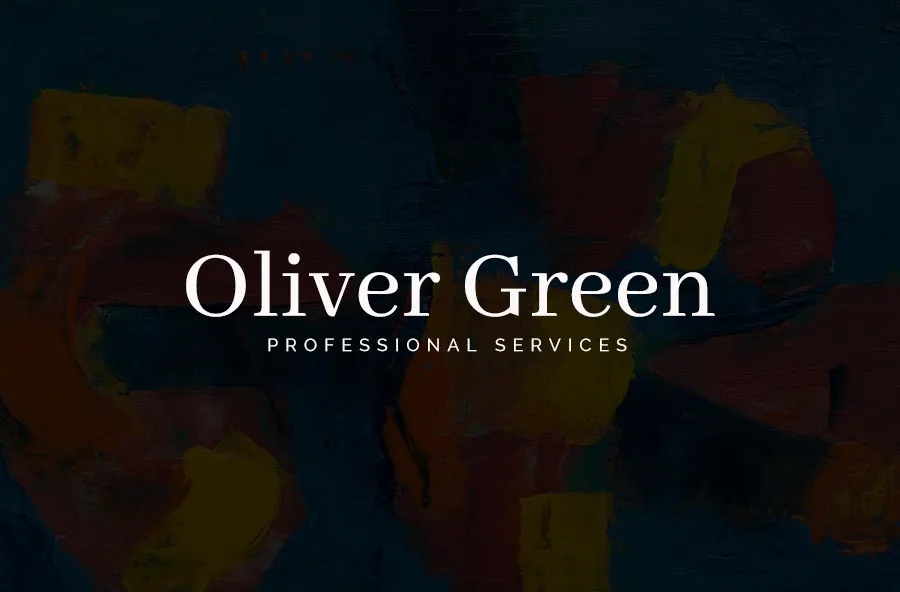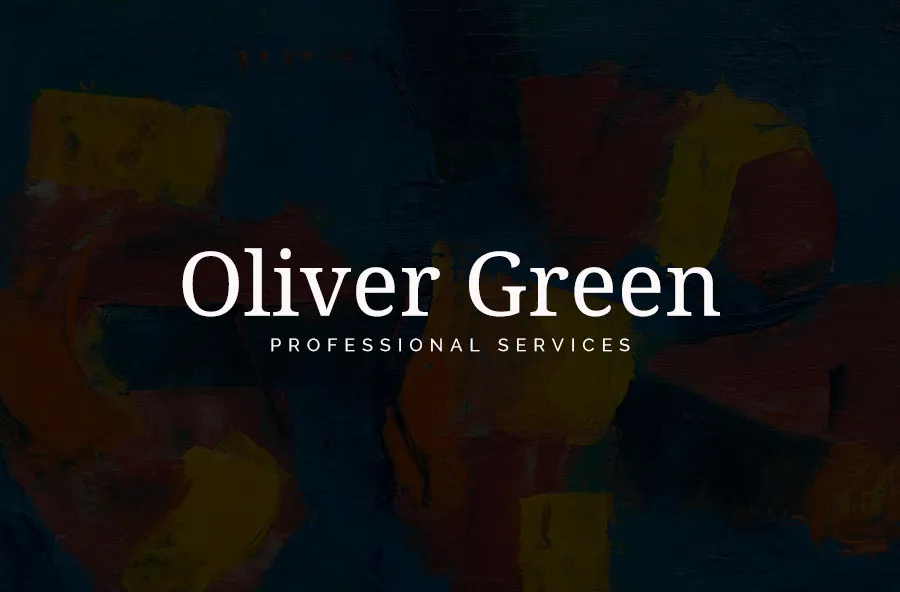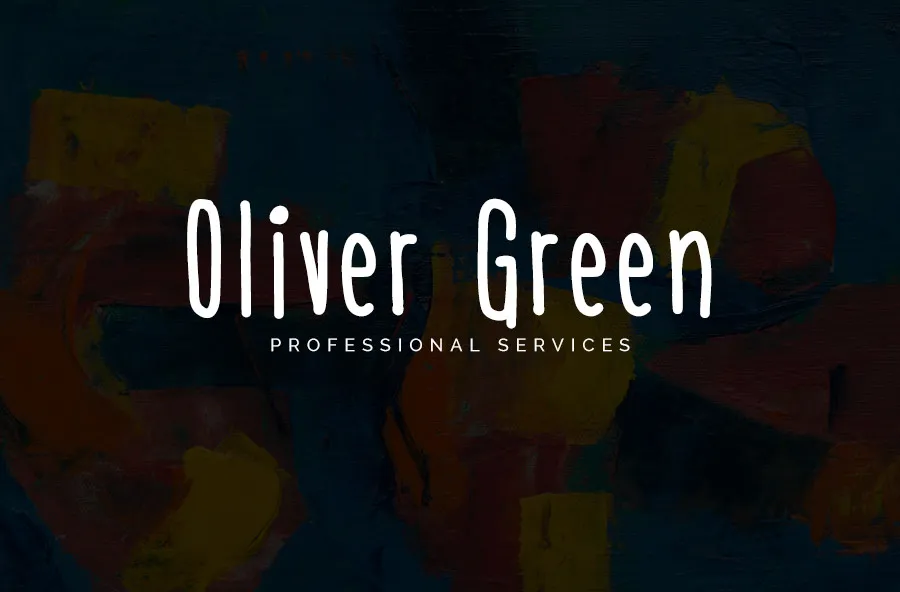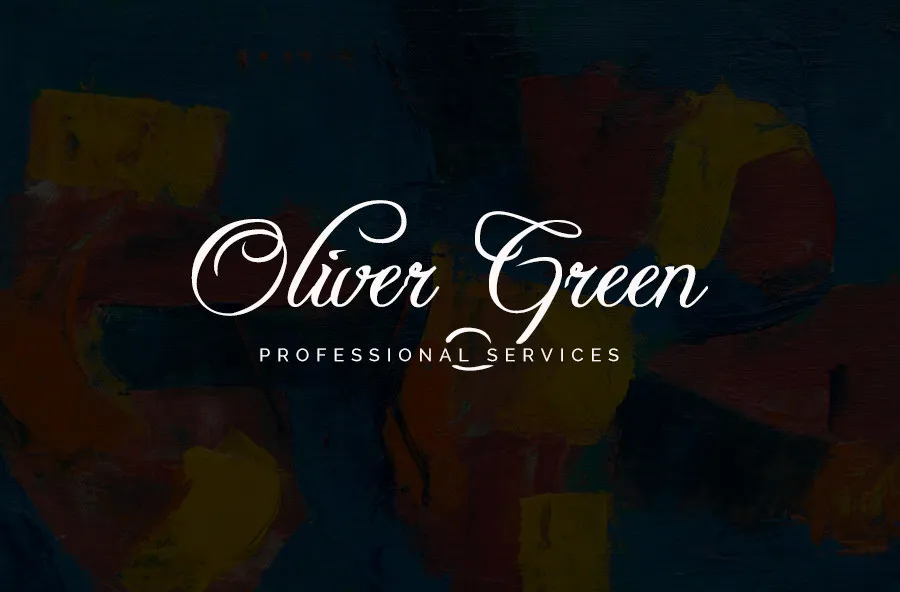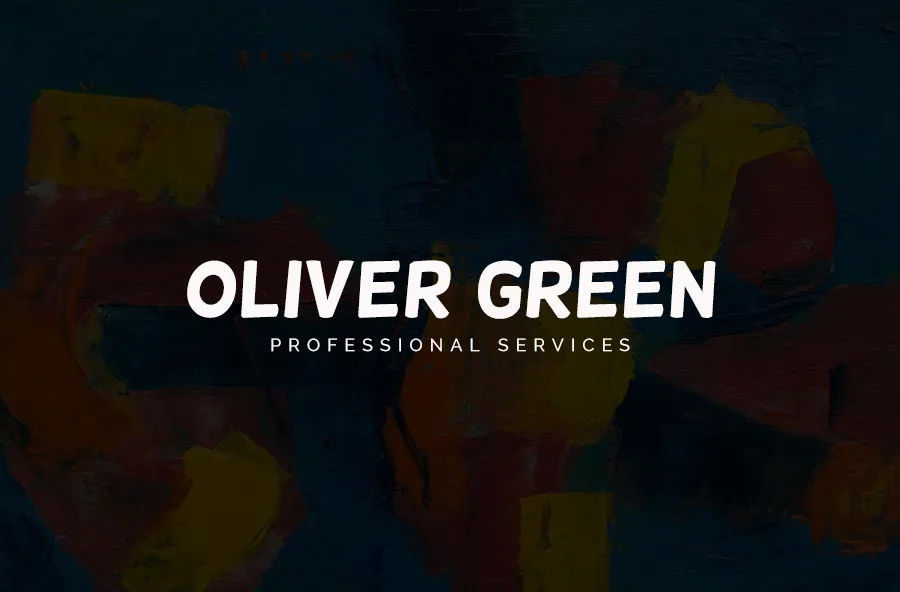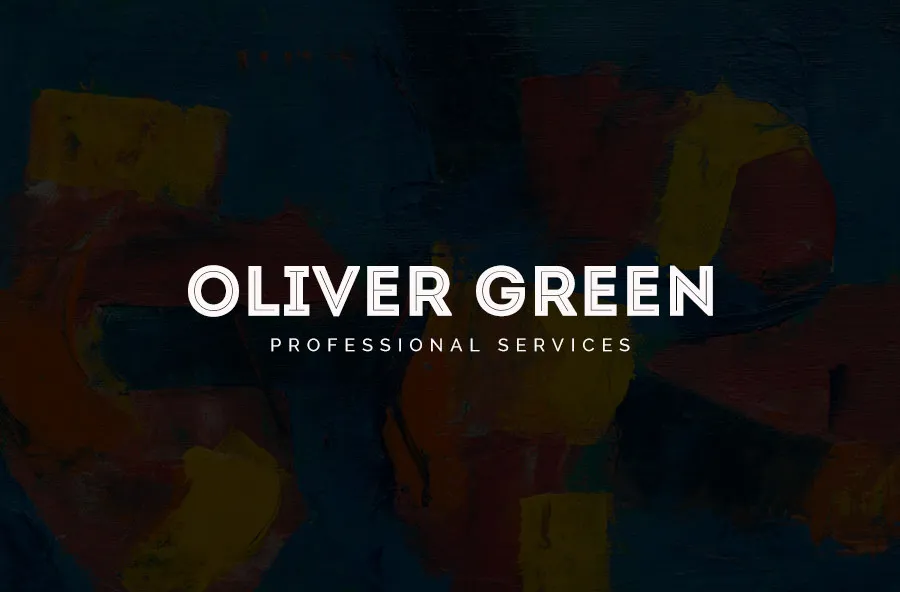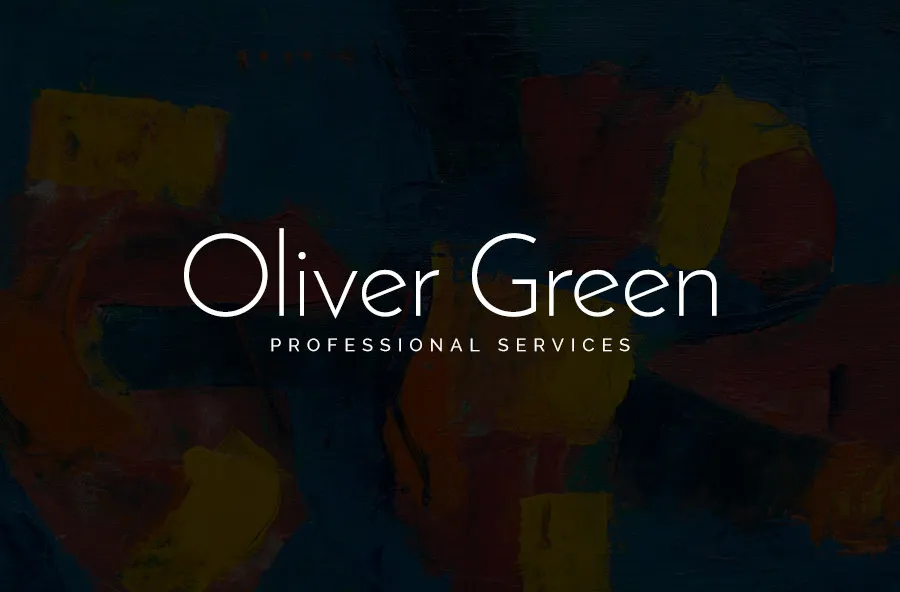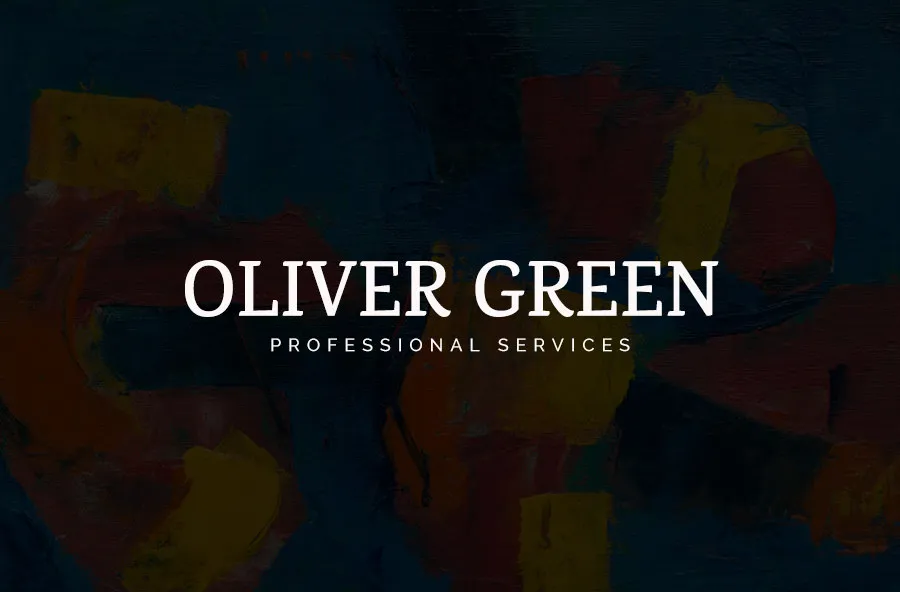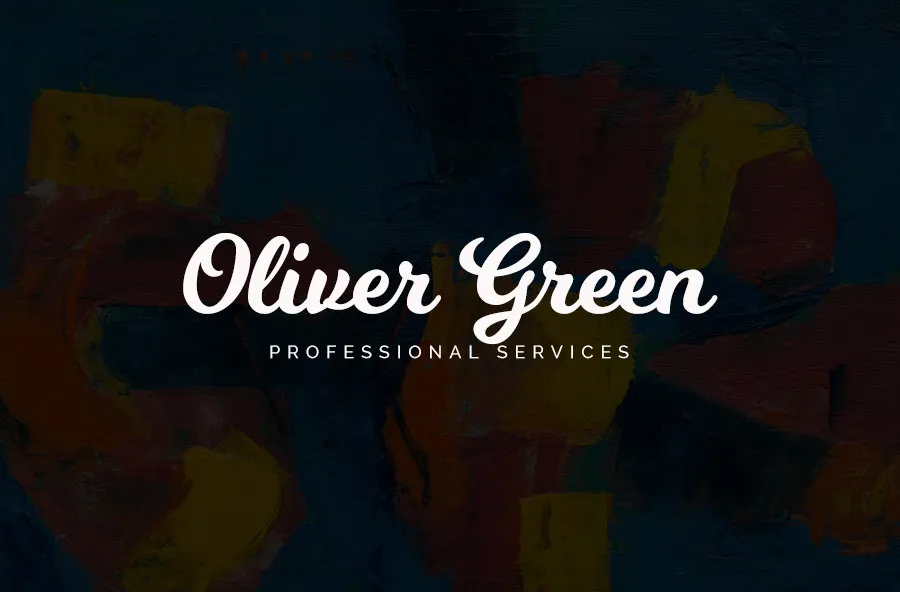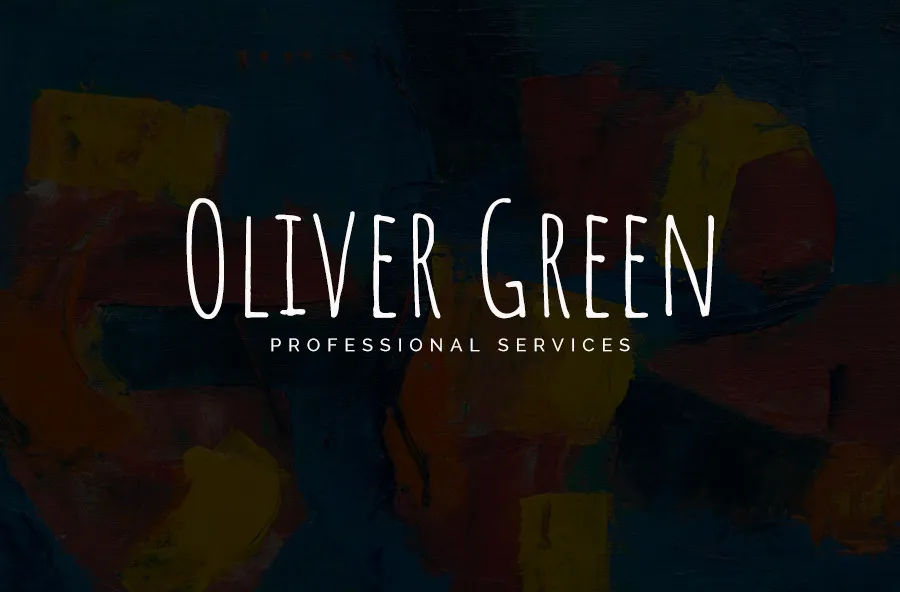
I’ve been doing logo design for five years now and in this time I’ve accumulated both experience and a lot of useful resources that I love and use whenever I design. One of these resources is a list of fonts for logo design.
When I just started out as a graphic, my biggest struggle where fonts, especially logo fonts. there was a time when I hated choosing fonts because I was so bad at choosing a font that works. I could design an icon, draw an illustration, but as soon as I added a font to my work, it completely ruined the whole image.
I knew that if I wanted to work as a digital designer, I needed to learn about fonts and how to use them properly. So I got a bunch of books, read everything I could find on the web about typography practices, practiced, practiced.
Today I can honestly say that fonts don’t scare me as much as they did and I actually don’t find it as hard to combine graphics with typography anymore.
But I still remember the frustration and desperation when I needed to choose a font for a logo design and I felt so lost.
If I had these feelings, I bet others have them too…maybe even you felt that fonts are just too hard, especially now that we have thousands to choose from.
Because of this, I decided to create a post that I would have loved to read five years ago.
I went through about 100 of my logo designs and wrote down all of the FREE FOR COMMERCIAL USE logo fonts that I use most frequently.
I also created custom “logo” examples using each of my most favorite logo font examples so that you would have a better idea how they look when used as a logo.
Can I use a font for my logo?
Now, you might be thinking: “Well that’s nice and all but isn’t it cheating? Can I use a font for my logo design?”
The short answer is YES you can use a font for your logo design.
Let me explain.
There are a lot of scenarios when you can and should use a font for your logo design.
- You might not have the skills needed to design typography form scratch
- Your client is on a budget so spending time designing custom letterforms is not feasible for you
- There is a specific font that your client loves and wants it made into a logo
No matter the reason, you are allowed to use a font for your logo design and 95% of designers do - including me.
How to choose a font for your logo?
The art of choosing the right logo font deserves a post of its own. So instead of lecturing you about logo font do’s and don’ts, I’ll try and explain what I’m looking at when choosing a logo font.
Fonts have personalities. Just by looking at a certain font, we can feel a certain way about it. A font can remind us of things and emotions. Some fonts feel posh and reming us of formal evens like weddings. Others are fun and quirky and makes us think about kindergartens and chalk drawings.
So the first thing I try and figure out is what is the personality of the brand I’m creating a logo for. To do that, I use the following personality spectrum for that and ask my clients to choose no more than three of the personality traits.
Brand Personality Spectrum
- Feminine or masculine
- Playful/fun or serious
- Luxurious or affordable/accessible to all
- Modern or classic/traditional
- Youthful or mature
- Loud or subdued
Establishing personality traits will help you narrow down your logo font choices.
Next, I will start to pay attention to actual letterforms to make sure they compliment the logo graphic that I have created.
For example, if my logo graphic has an important element that is round, I will look for a logo font that has round letterforms. So I will look how the letter “o” looks, for instance, to see if it is as round as my graphic.
If my graphic has sharp corners, I will look for a font that has pointy details as well. Repetition is a reliable way to make different logo elements work well together.
Logo with both round and sharp details in it.
Sting Ultra Condensed font is a great bold logo font choice. Perfect for lifestyle and travel-related brands. The condensed form is perfect when you need to get as much information as you can into a limited space. Download Sting Ultra Condensed font here.
32. Sunday
Sunday font has been in my font toolbox for a long time already and I keep finding uses for it all the time. It’s designed to look like a vintage-inspired illustration instead of a font. This makes it a perfect logo font choice when combined with hand-drawn illustrations. Download Sunday font here.